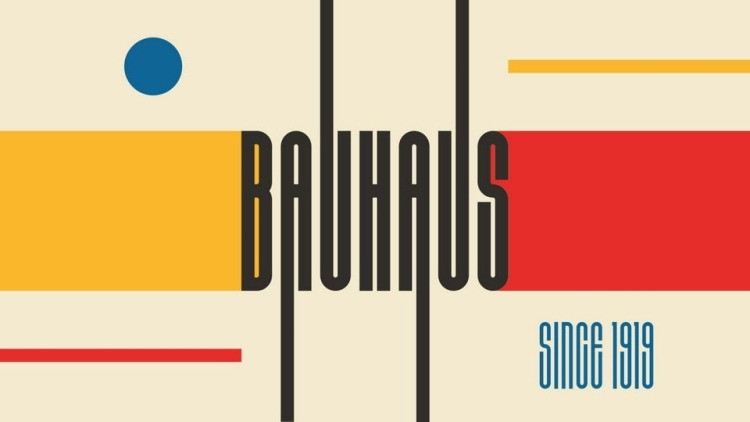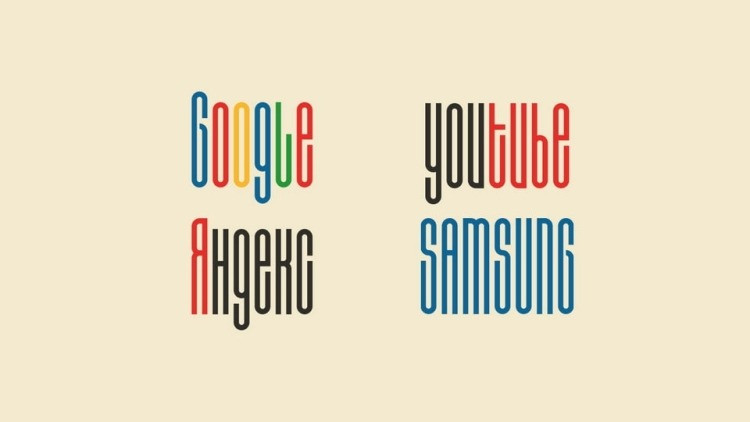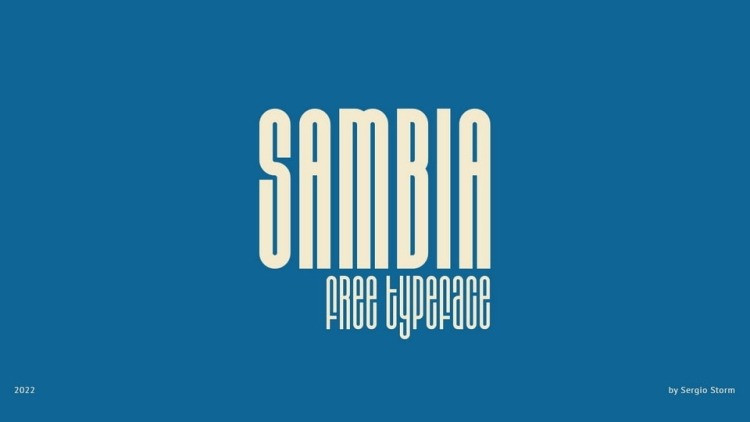
Sambia Font
Sambia Sans Serif Font is a geometric sans-serif, straight, extra condensed, monoweight typeface, accidental with sharp corners and closed aperture. The font family consists of regular and bold fonts.
Sambia font is great for headlines, logos and posters.
The typeface is inspired by the Bauhaus style and tributes to the first half of the 20th century era. It has concise rounded forms, geometricity and a small letter-spacing.